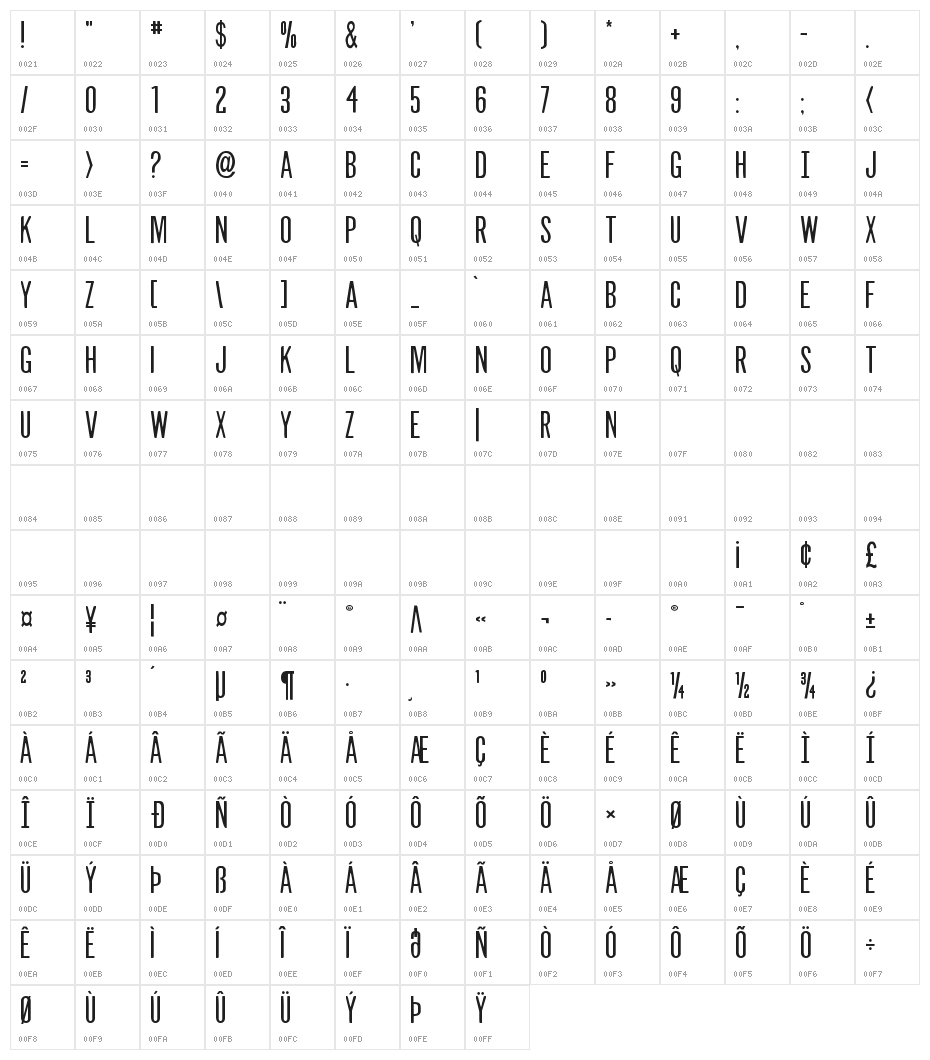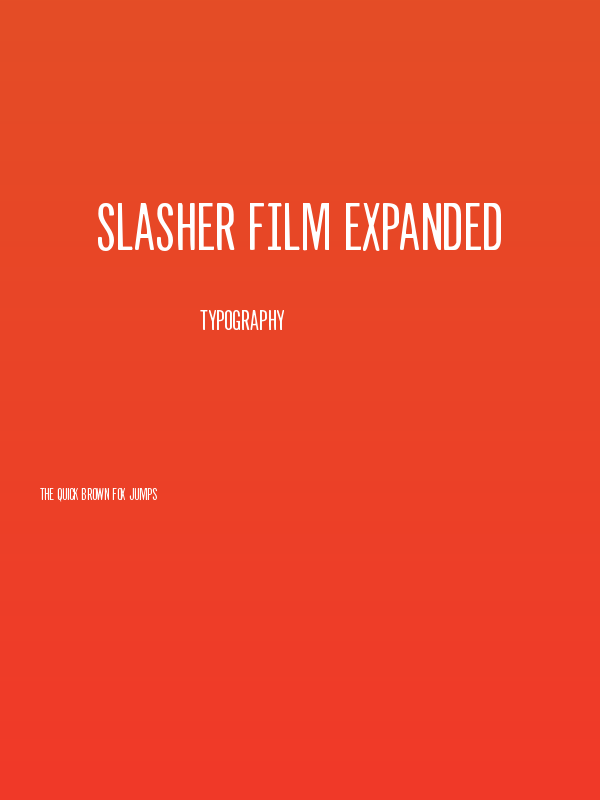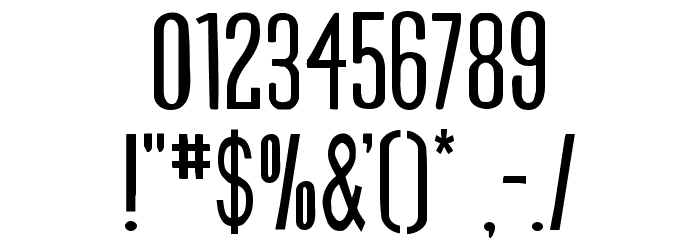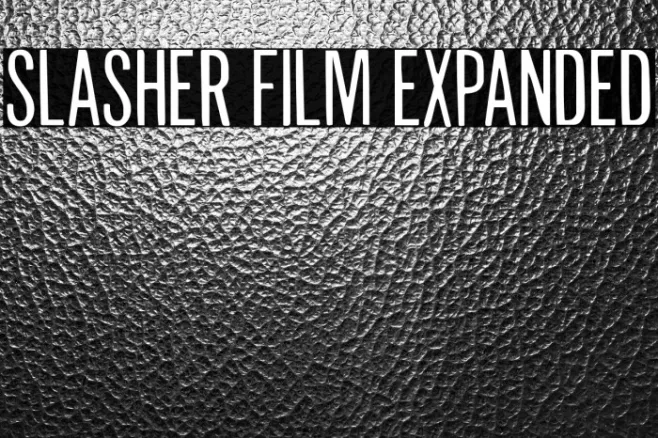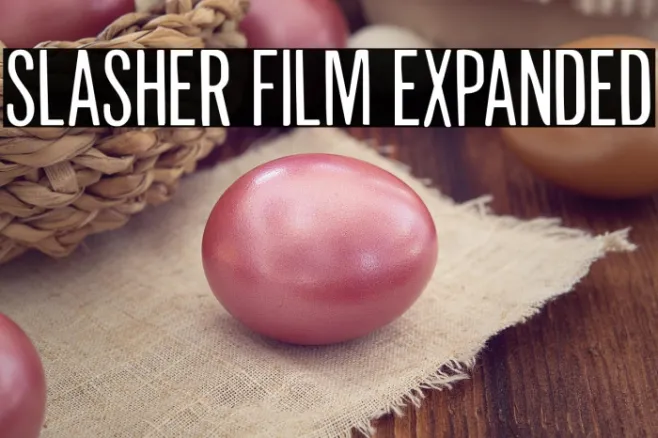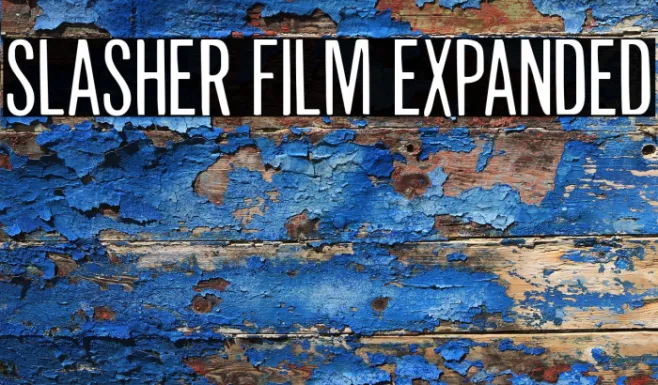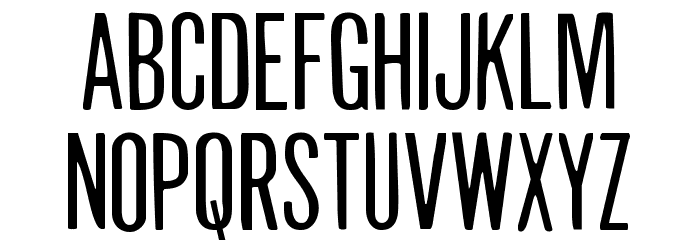
Slasher Film Expanded Font
Slasher Film Expanded Description
This font features a bold and expanded style with tall, narrow characters that give it a distinctive and modern appearance. The uppercase letters are particularly elongated, creating a dramatic and impactful look. The lowercase letters maintain a consistent height, complementing the uppercase set. Numbers are similarly styled, ensuring uniformity across all characters. Special characters are included, matching the overall aesthetic with clean lines and a slightly condensed form. The font's design is both striking and versatile, suitable for a variety of creative applications.
| Proposed Projects | Ideal for movie posters, headlines, branding, and advertising materials. |